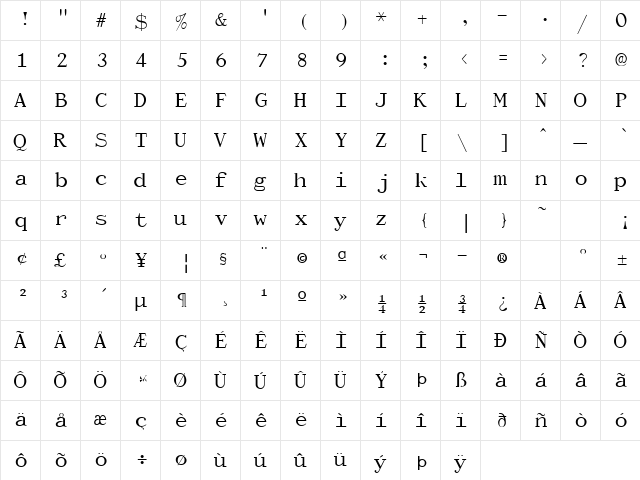
Dactylographe Regular
Design Context for Dactylographe Typeface
Dactylographe is a composed and adaptable typeface that performs quietly and consistently across a wide range of design contexts.